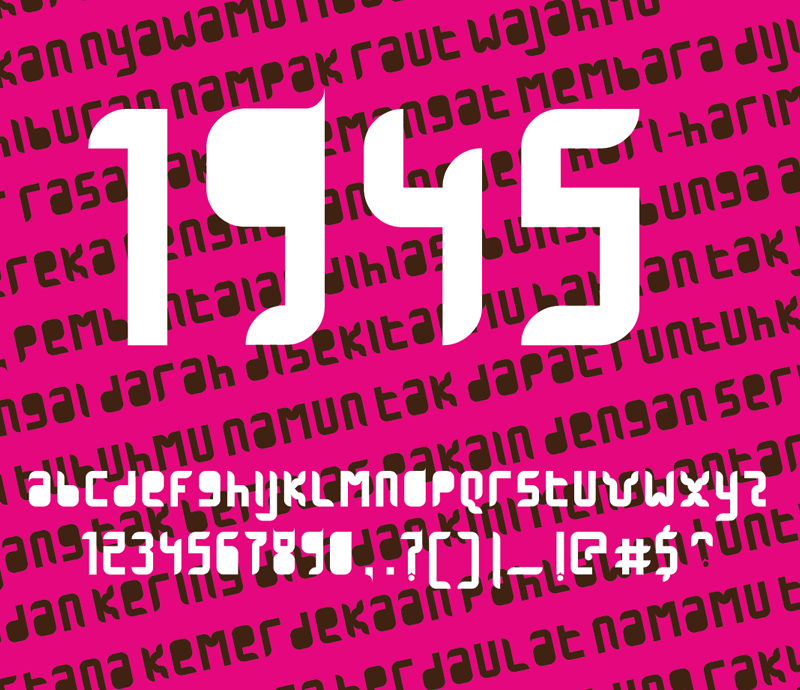
Note by Muhammad Rizky Ariesto | |
Indonesia Independence is in 17th August exact in 1945.I create it to celebrate indonesia independence day.I made it special for my country. I LOVE INDONESIA |